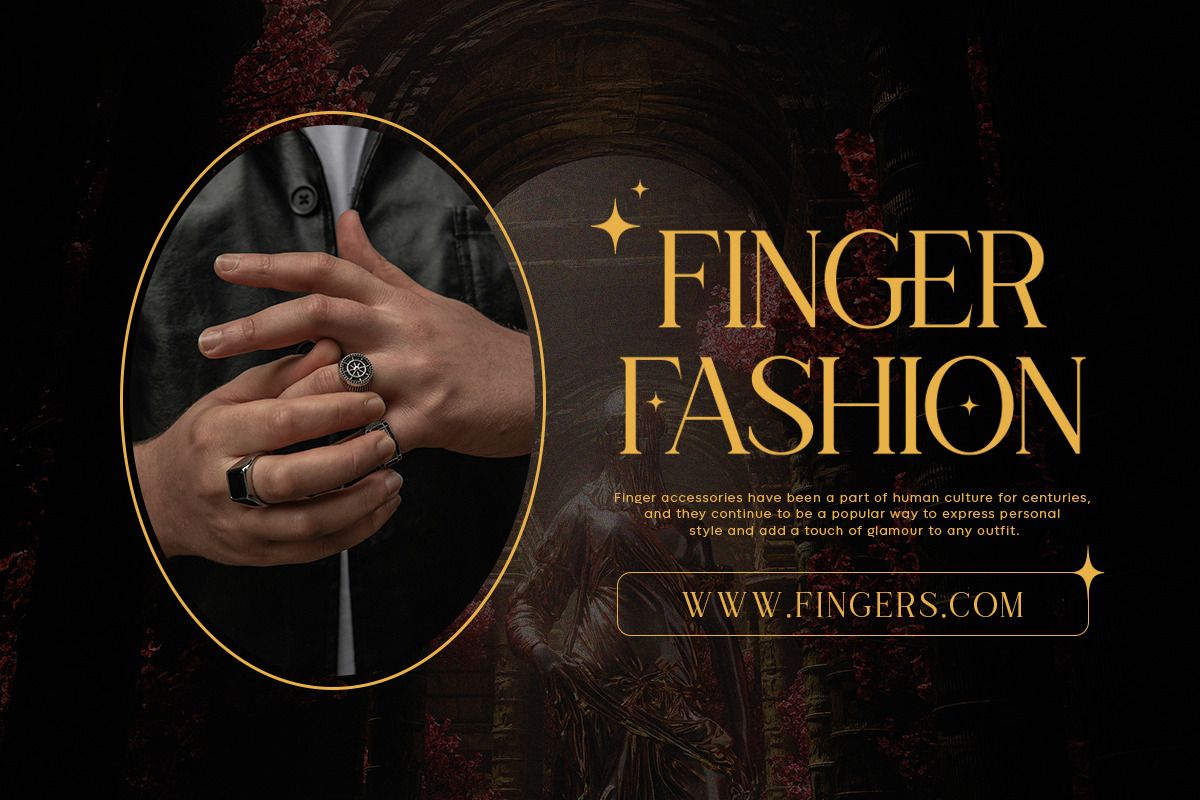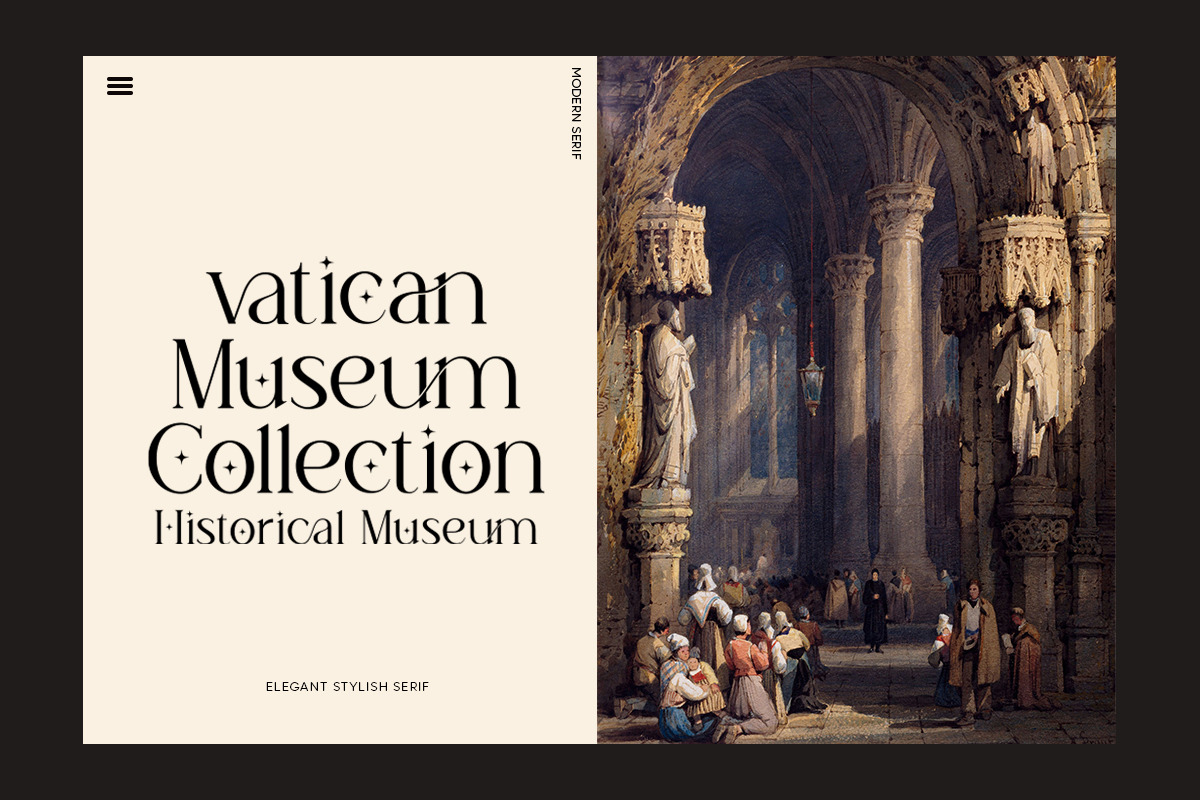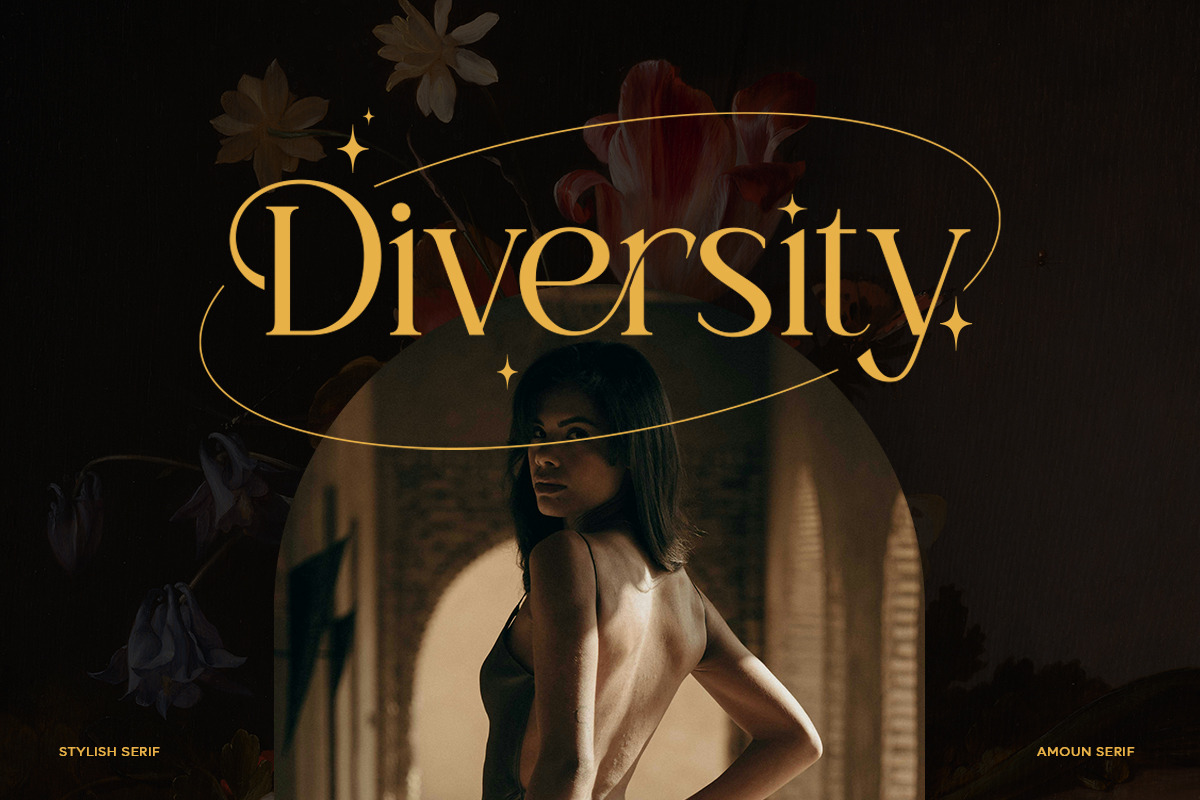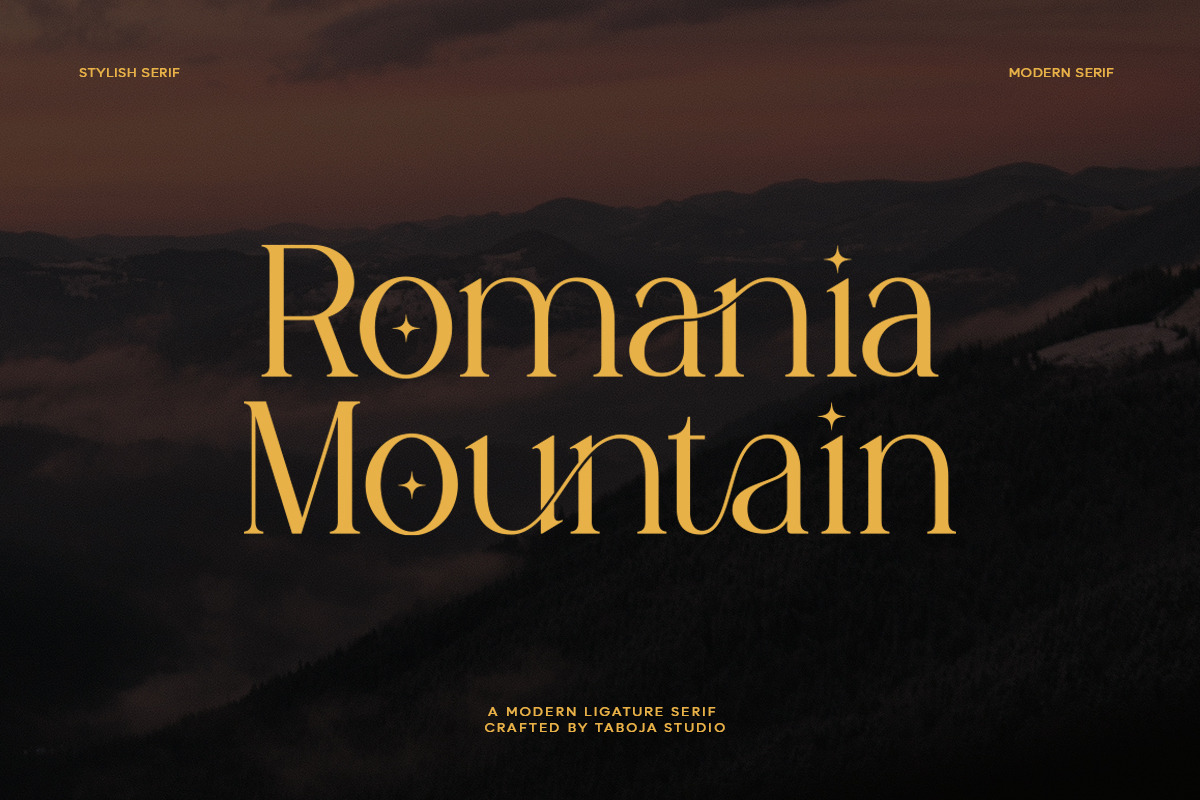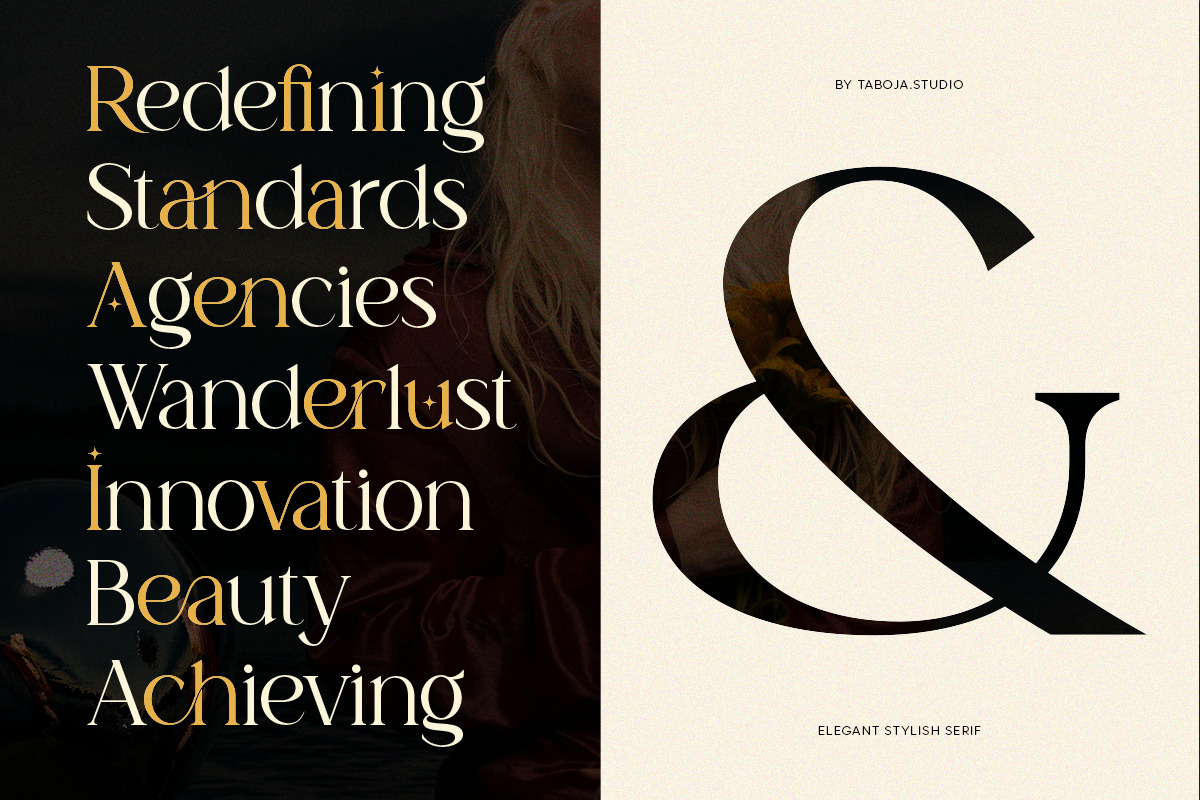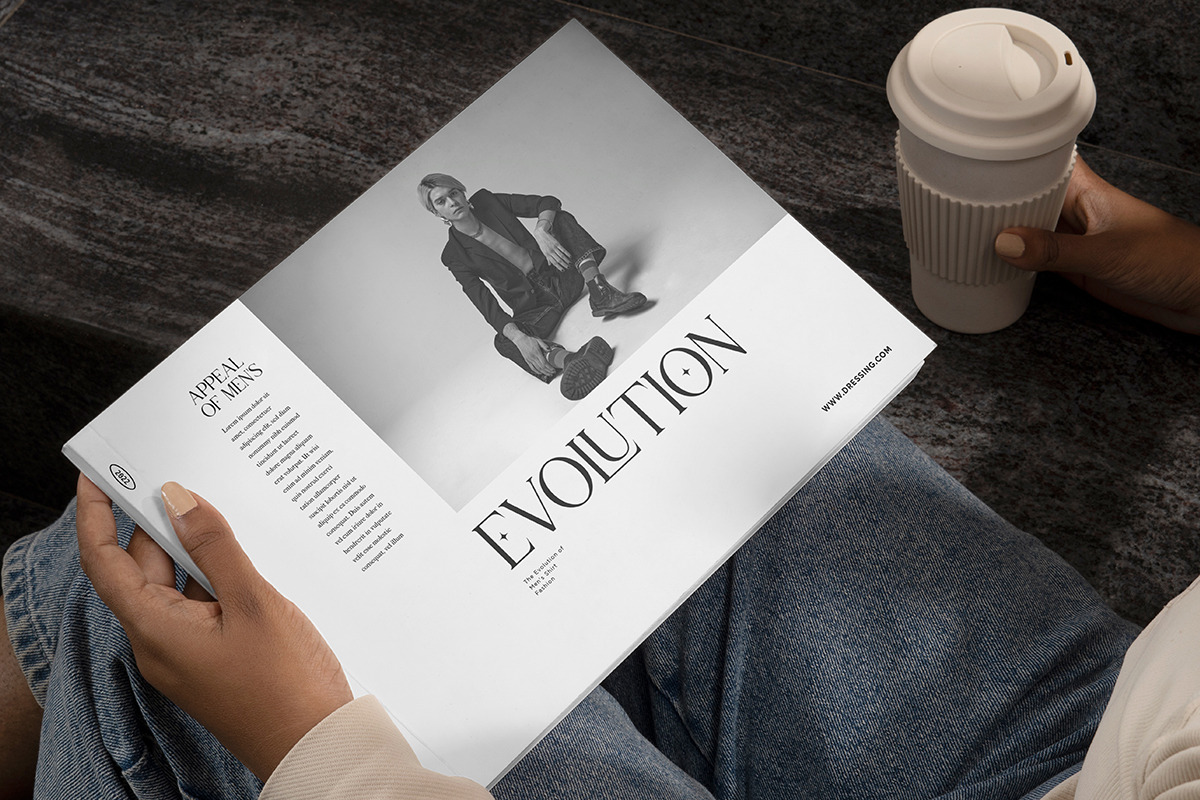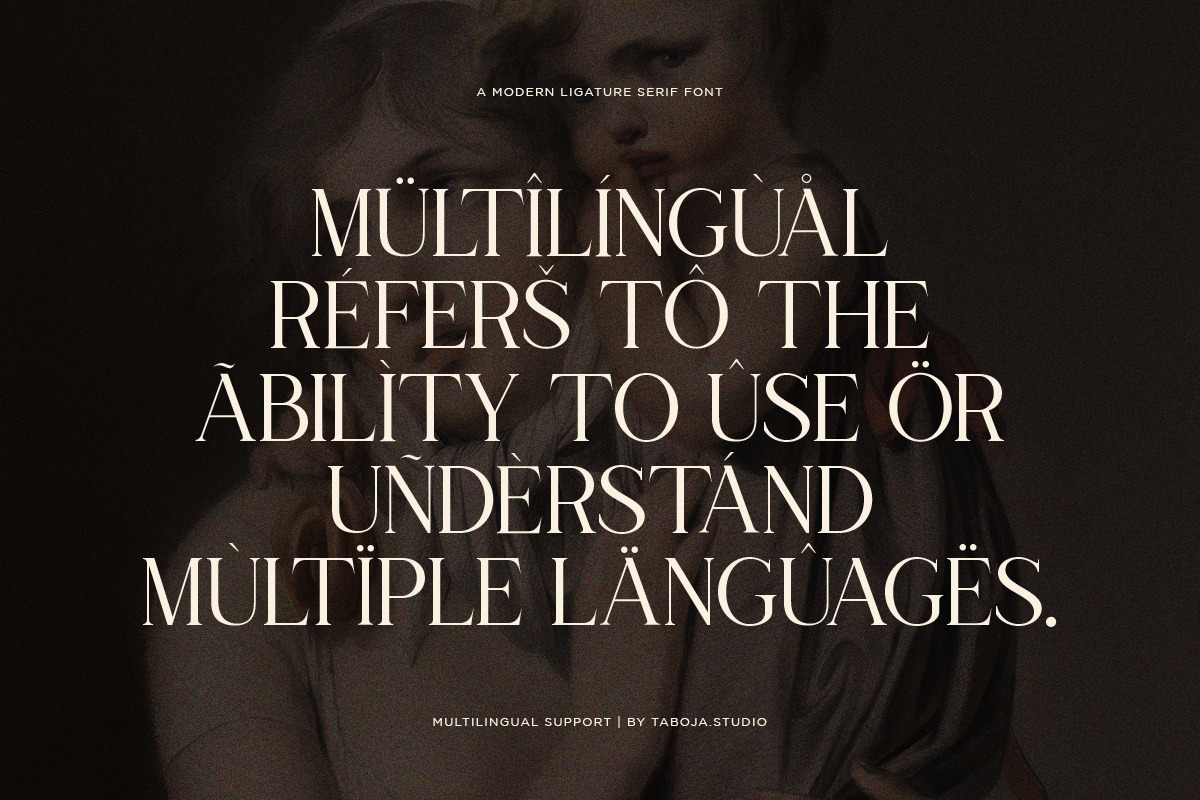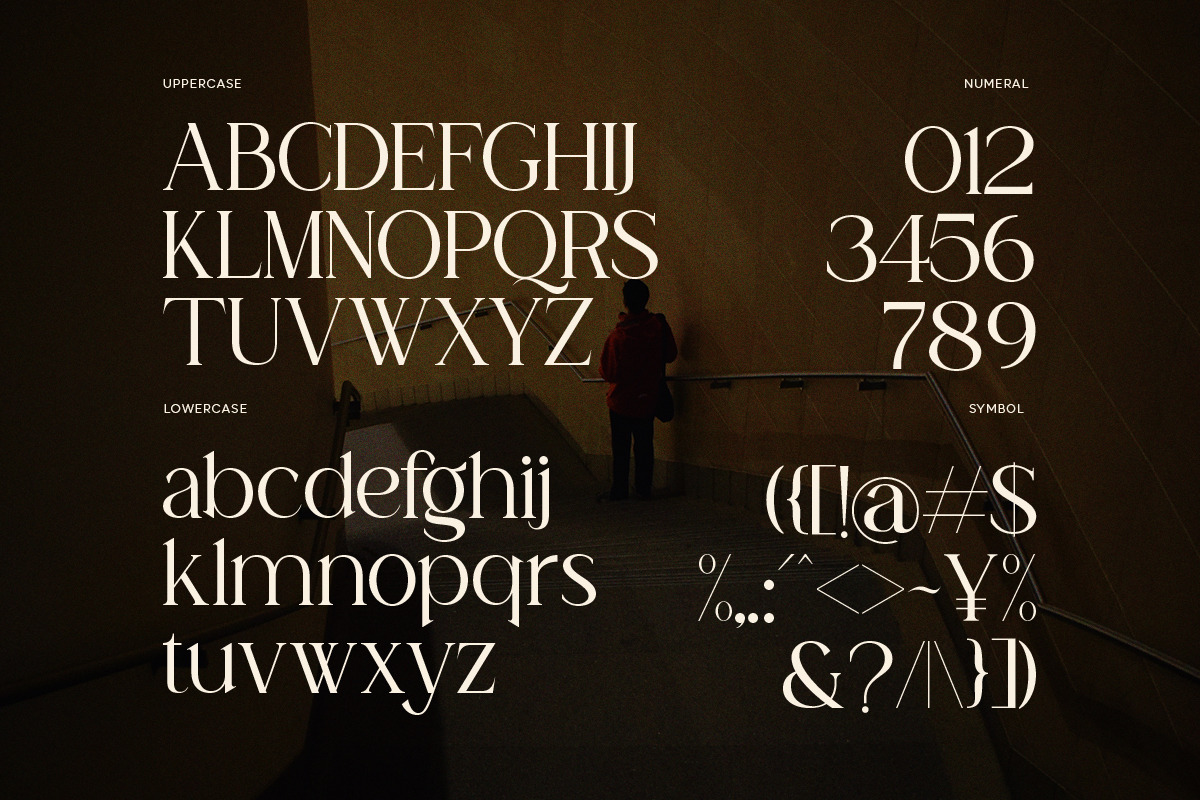
TBJ Amoun | Classy Modern Serif
Epitomizing centuries-old finesse in typographic artistry, the Serif Classic font exudes an enduring allure. Graceful and cultured, this font presents an ageless allure marked by clean lines and sophisticated design. Each meticulous detail of its proportionate architecture lends to the emblematic serenity and luxury of designs that have weathered time's unyielding march.
Featuring finely chiseled lines and a pleasing aesthetic, this font absolutely resonates with an air of seriousness. Masterfully constructed, every letter stands firm, projecting a sense of sturdiness. Serif Classic font, unrivaled in its elegance, tastefully elevates any project demanding an infusion of timeless sophistication in typographic design.
Amoun Font Features:
- Uppercase And Lowercase
- Alternates And Ligatures